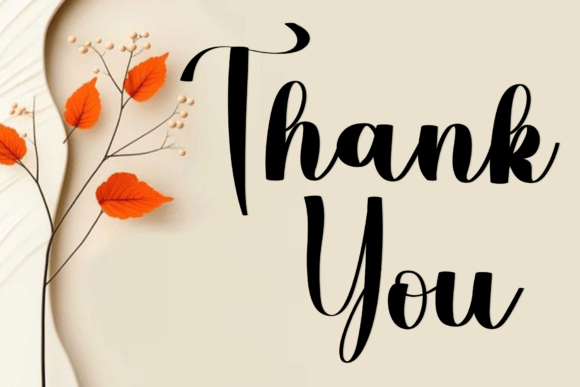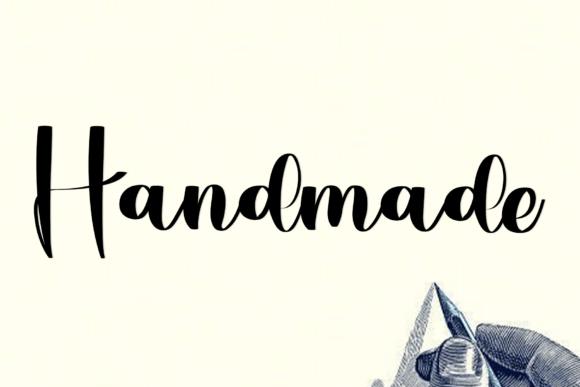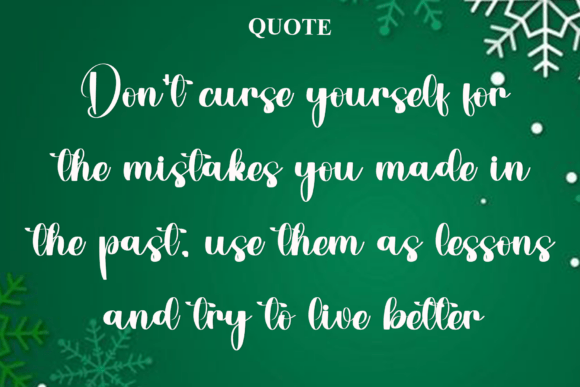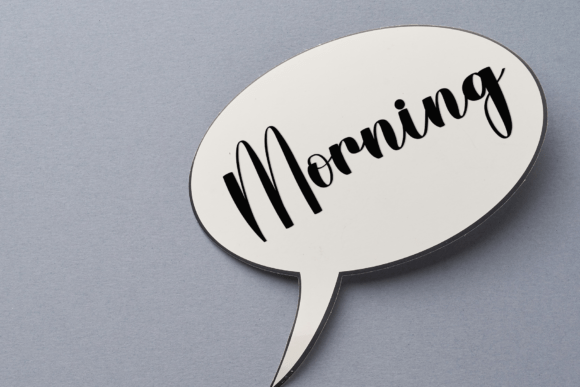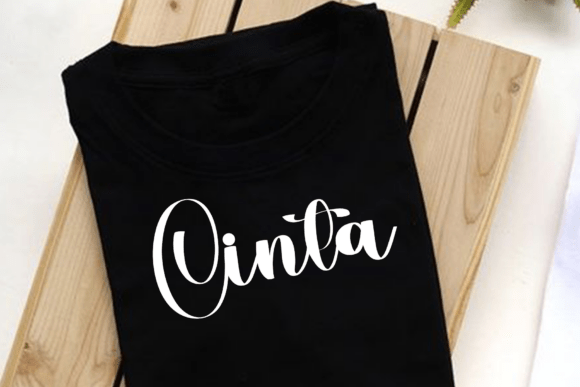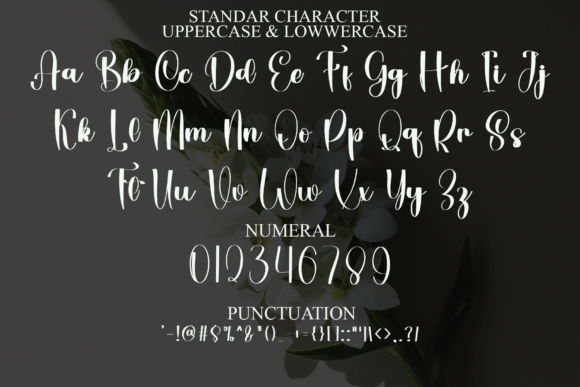
Get Ready to Spread Holiday Cheer with the Beauty Kindness Font
As the snowflakes start to fall and the twinkling lights adorn the streets, the holiday season is in full swing. And what better way to capture its magic than with a font that embodies the spirit of the season? It’s a moment of creativity, where the possibilities are endless and the joy is contagious. I remember it like it was yesterday – rummaging through my grandmother’s attic, unearthing a treasure trove of vintage greeting cards and gift tags, each one a testament to the love and kindness that went into creating them.
Now, I’m excited to share with you the Beauty Kindness Font, a festive and merry typeface that will add a touch of enchantment to your holiday designs. Perfect for greeting cards, gift tags, and holiday-themed projects, this font brings a cheerful and nostalgic ambiance to your words. With its decorative elements and whimsical flair, the Beauty Kindness Font is a valuable addition to any designer’s toolkit.
Beauty Kindness Font Key Features
- Unique Characteristics: Beauty Kindness Font features a unique blend of elegant and playful elements, making it perfect for designs that require a touch of sophistication and whimsy.
Beauty Kindness Font Review
Overall, I think the Beauty Kindness Font is a sweet and feminine addition to any design project. Here’s what I like about it: ✨
- Soft and elegant feel: The font’s rounded edges and gentle curves give it a soothing and approachable vibe.
- Legibility: Beauty Kindness is easy to read, even at smaller font sizes, making it perfect for body text or headings.
- Style versatility: It works well for both modern and traditional designs, from fashion and beauty brands to home decor and stationery.
However, I do see some limitations: ⚠️
- Not ideal for bold or edgy designs: Beauty Kindness is a delicate font that may not be the best choice for projects that require a stronger, more dramatic look.
- Limited font weight options: The font comes in a limited range of weights, which may not be suitable for projects that require a lot of emphasis or contrast.
Overall, I think the Beauty Kindness Font is a lovely addition to any designer’s toolkit. While it may not be the best choice for every project, it’s a great option for designers who want to create a soft, feminine look that’s perfect for beauty, fashion, or lifestyle brands.
For best results, use Beauty Kindness Font in headings and titles to create a visually appealing and empathetic design.
It’s ideal for use in social media graphics, blog posts, and marketing materials that focus on kindness and empathy.